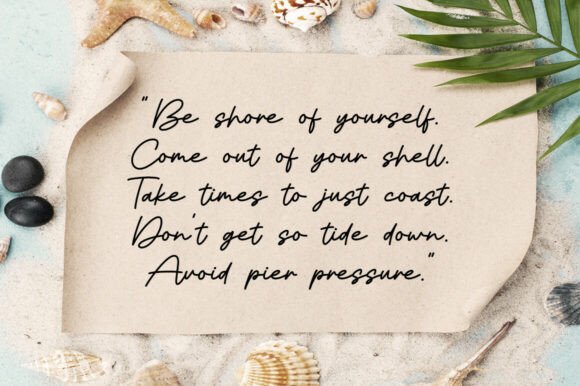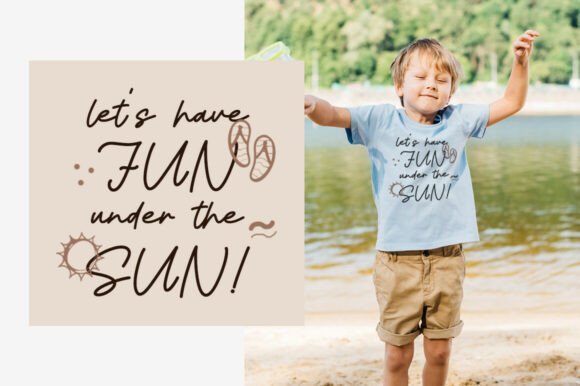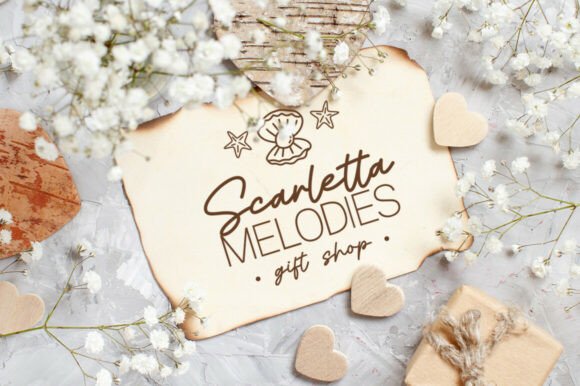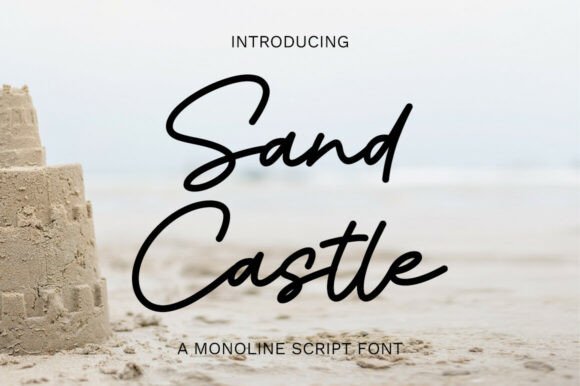
Introduction to Sand Castle Font
Sand Castle is a lovely and timeless handwritten font.
It is the best choice for creating eye-catching logos, branding, and quotes .